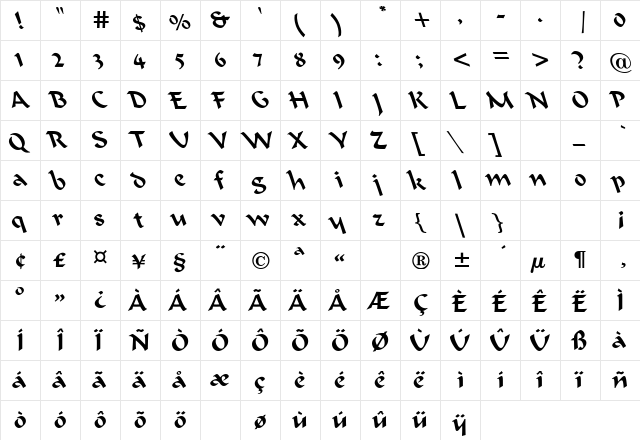
Formalist Script Regular Lefty Regular
Design Context for Formalist Script Regular Lefty Typeface
Formalist Script Regular Lefty flows with the natural rhythm of handwritten lettering, making it ideal for designs that call for warmth and personal expression.
Font Pairing: Combine Formalist Script Regular Lefty with a simple geometric sans for maximum contrast — the tension between flowing curves and clean structure is a classic typographic pairing.
Pro Tip: Pair Formalist Script Regular Lefty with a clean sans-serif for supporting text. The contrast between fluid script and geometric structure creates an elegant typographic hierarchy.